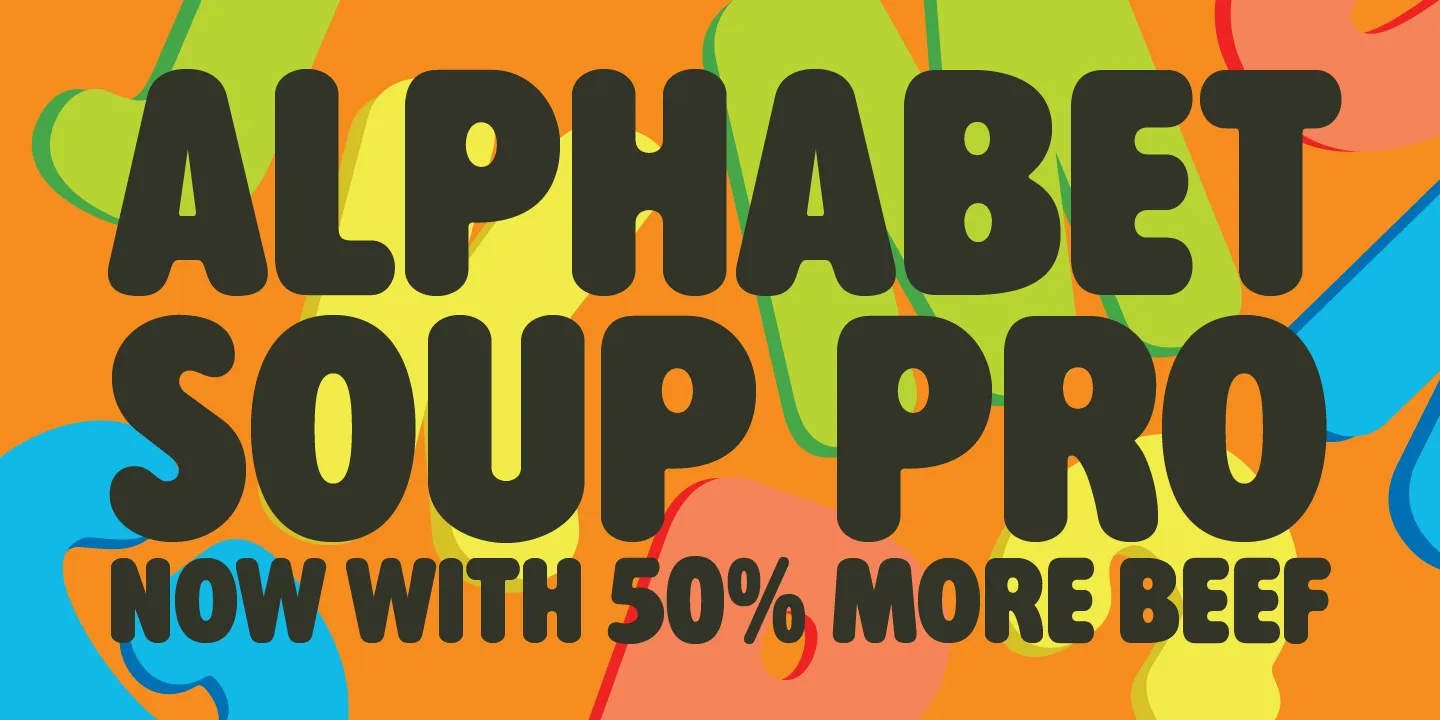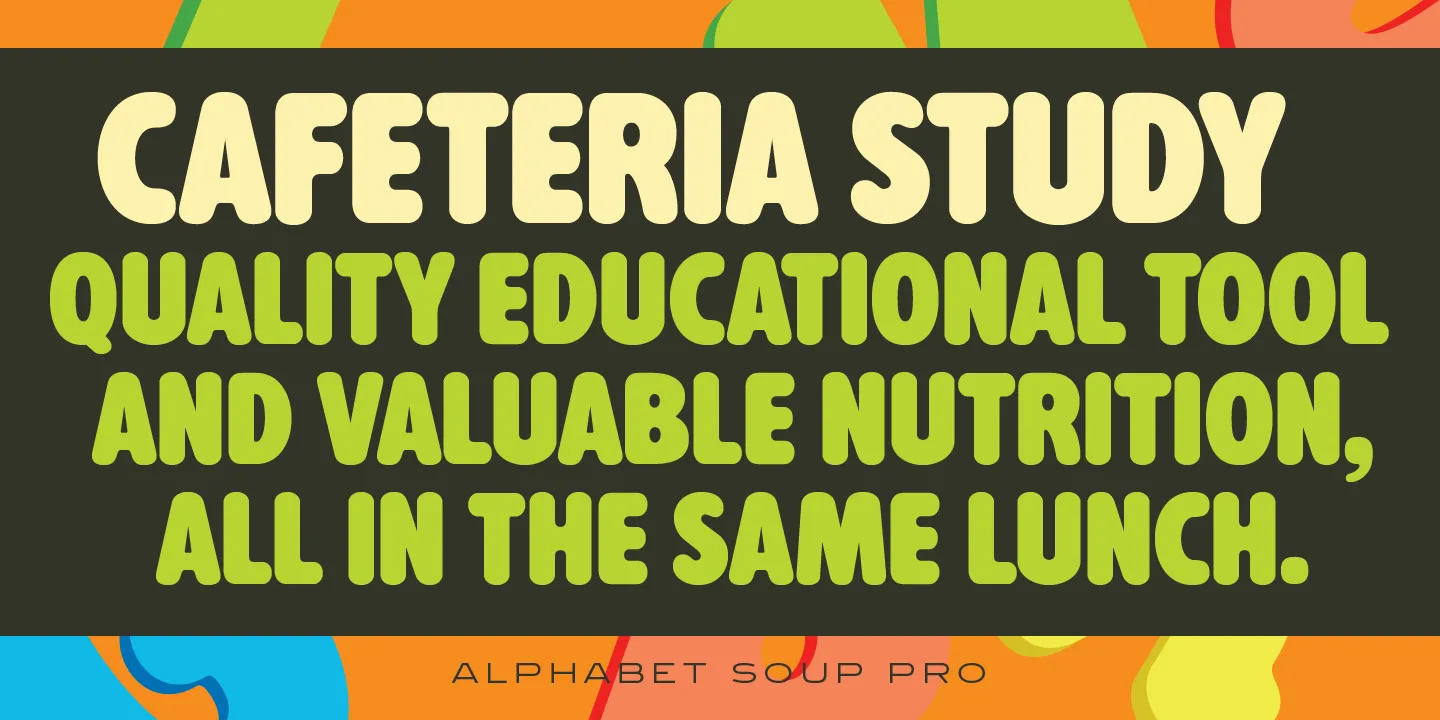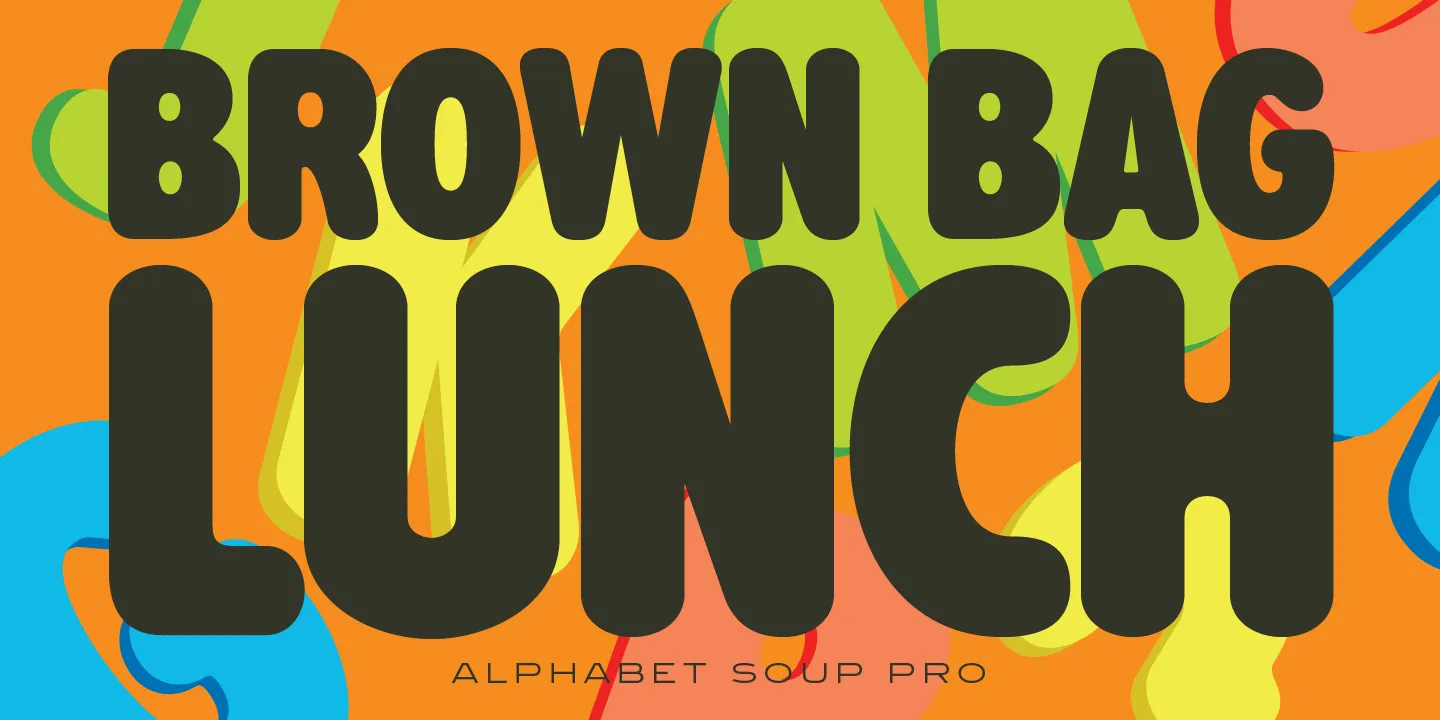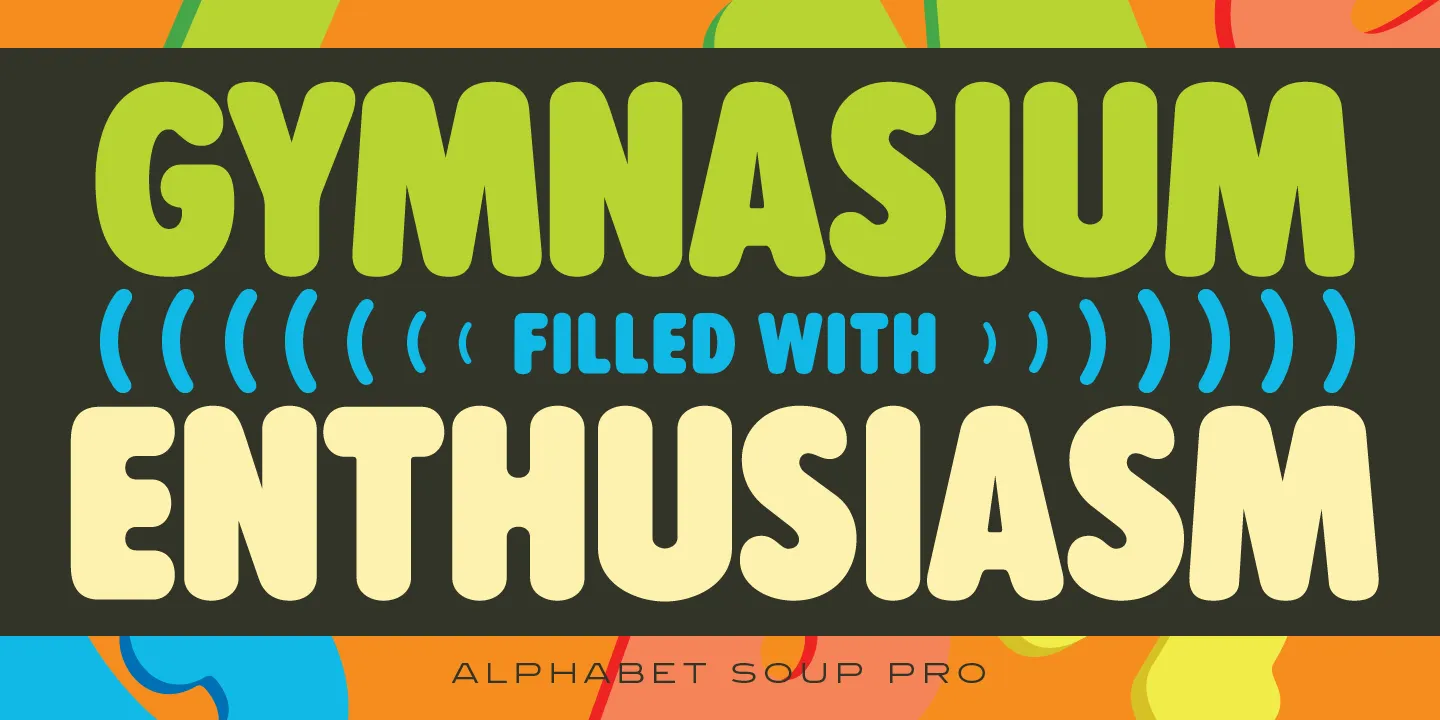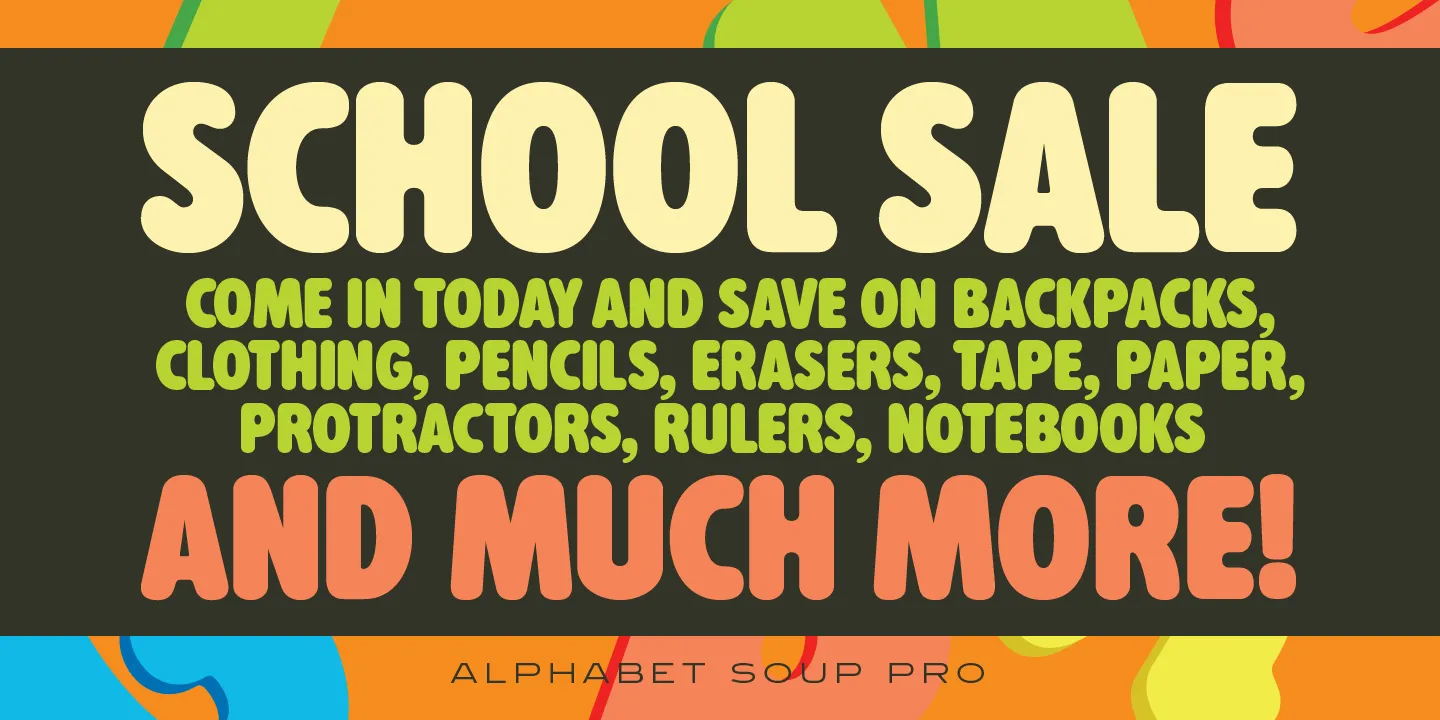
Alphabet Soup Font
Alphabet Soup is a rounded sans typeface. It was designed and produced by Steve Jackaman (ITF) in 2010. In the early 1980s, Jackaman worked at Typographic House in Boston, Massachusetts. At the time, ‘Typo’ House, as it was affectionately known, was the largest type house in New England. The base typeface, called TH Alphabet Soup, was designed and produced during his tenure. It was so popular that the typeface became available commercially through Visual Graphics Corporation (VGC).